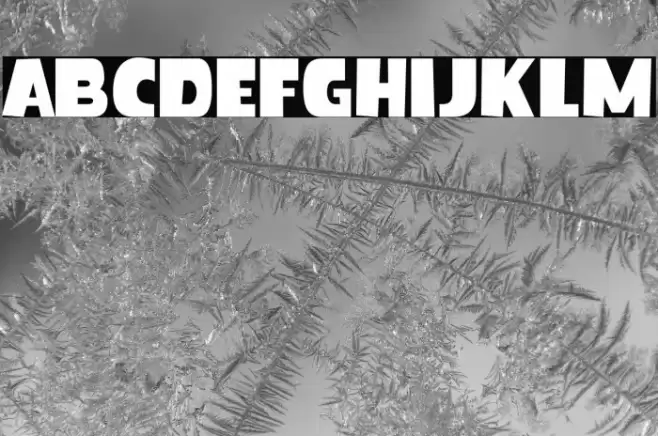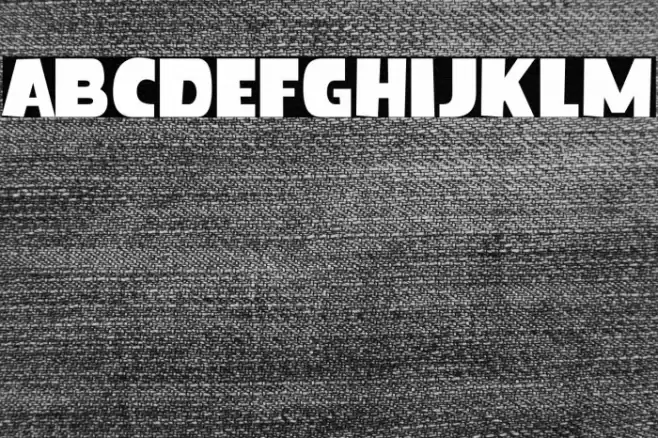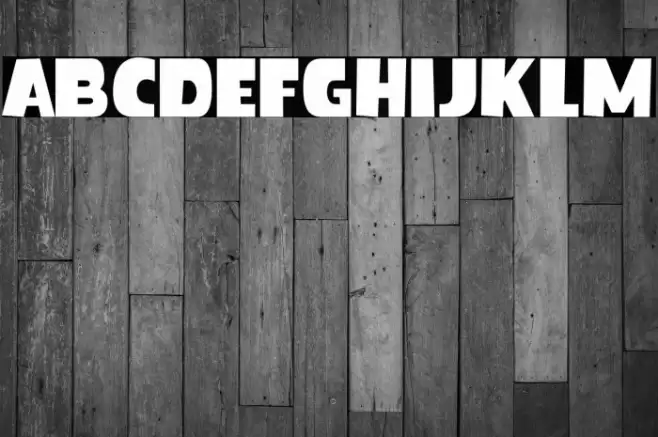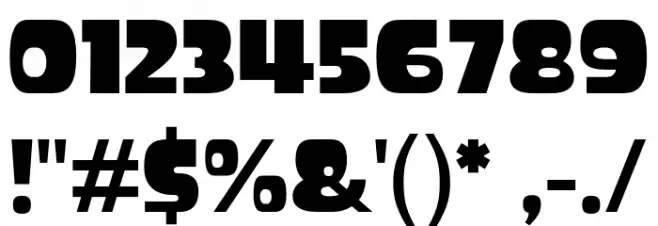
IceEgg-Regular Font
IceEgg-Regular Description
This font features bold, geometric letterforms with a strong presence. The characters are wide and blocky, giving a sense of stability and strength. The uppercase and lowercase letters maintain a consistent weight, creating a uniform appearance. The numbers and special characters follow the same bold style, ensuring cohesion across all text elements. The font's design is modern and impactful, making it suitable for attention-grabbing headlines and logos. Its distinct style can add a contemporary edge to any design project.
A bold, geometric font with wide, blocky characters for a modern look from Uncategorized fonts.
- Font: IceEgg-Regular
- Proposed Projects: Ideal for branding, advertising, posters, and any project needing a strong visual impact.
- Width: Expanded